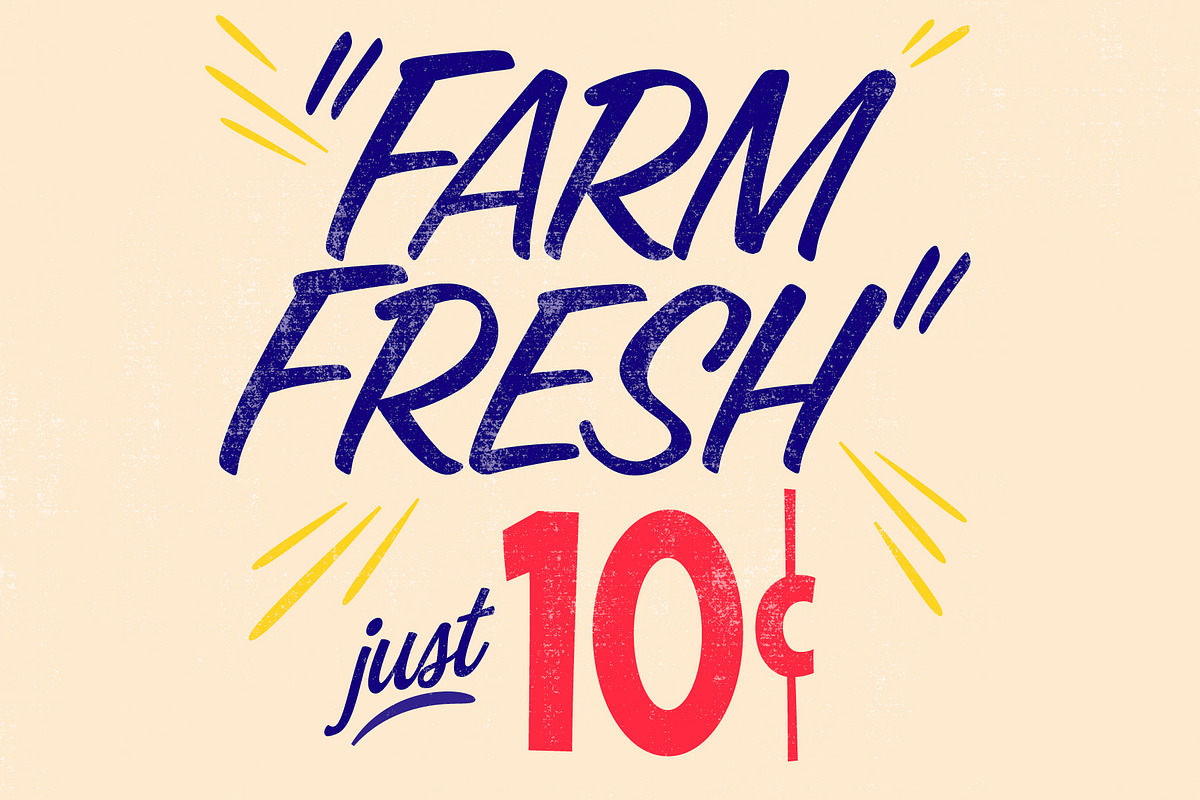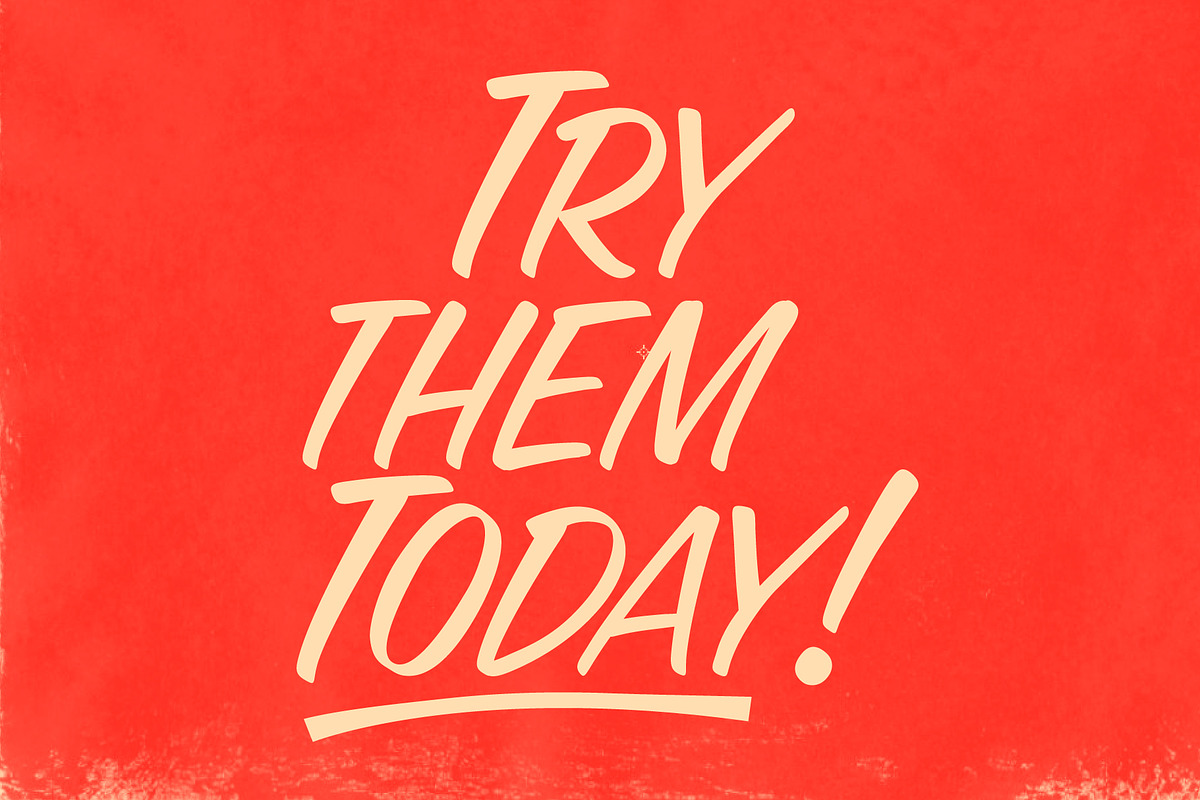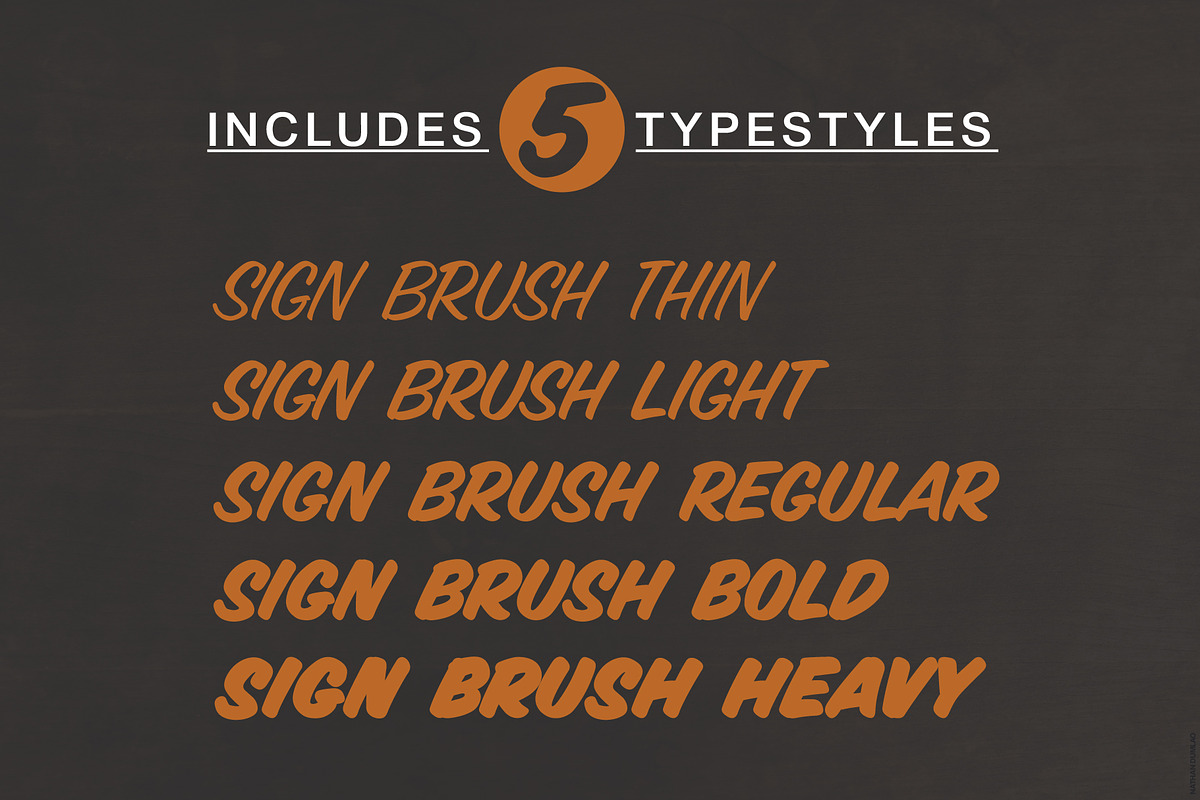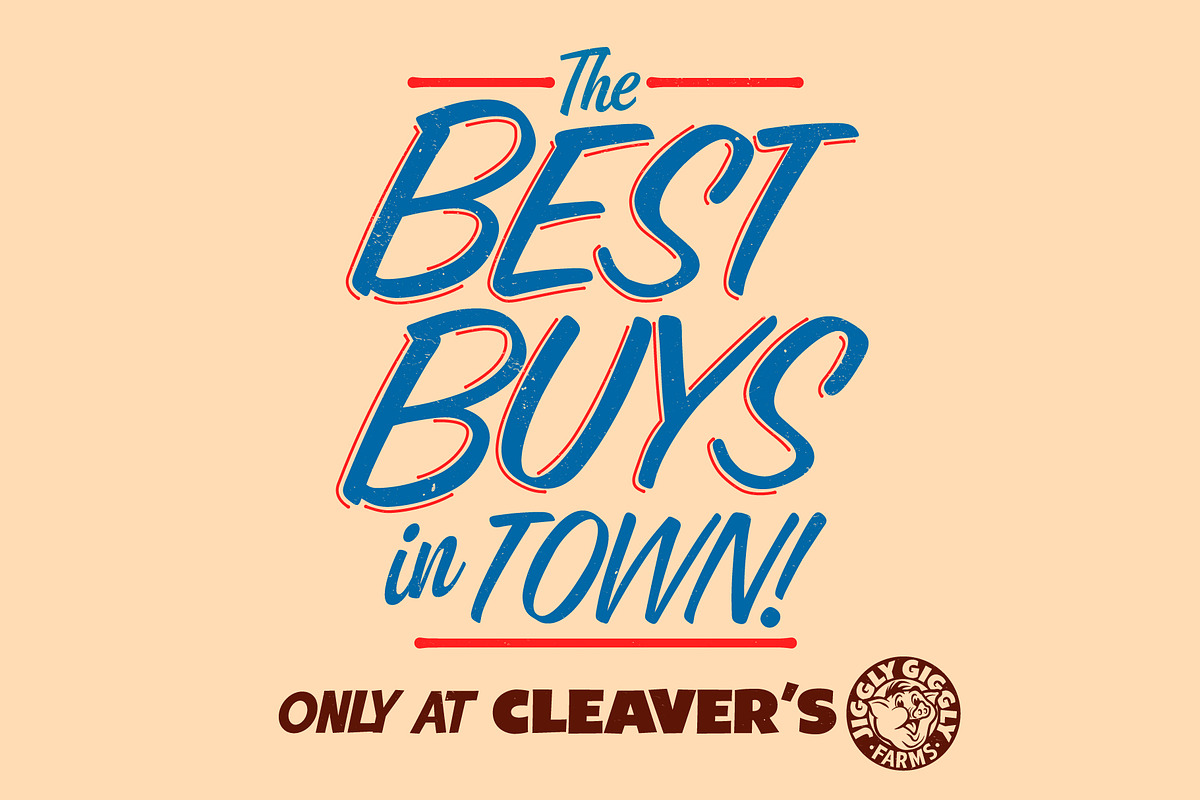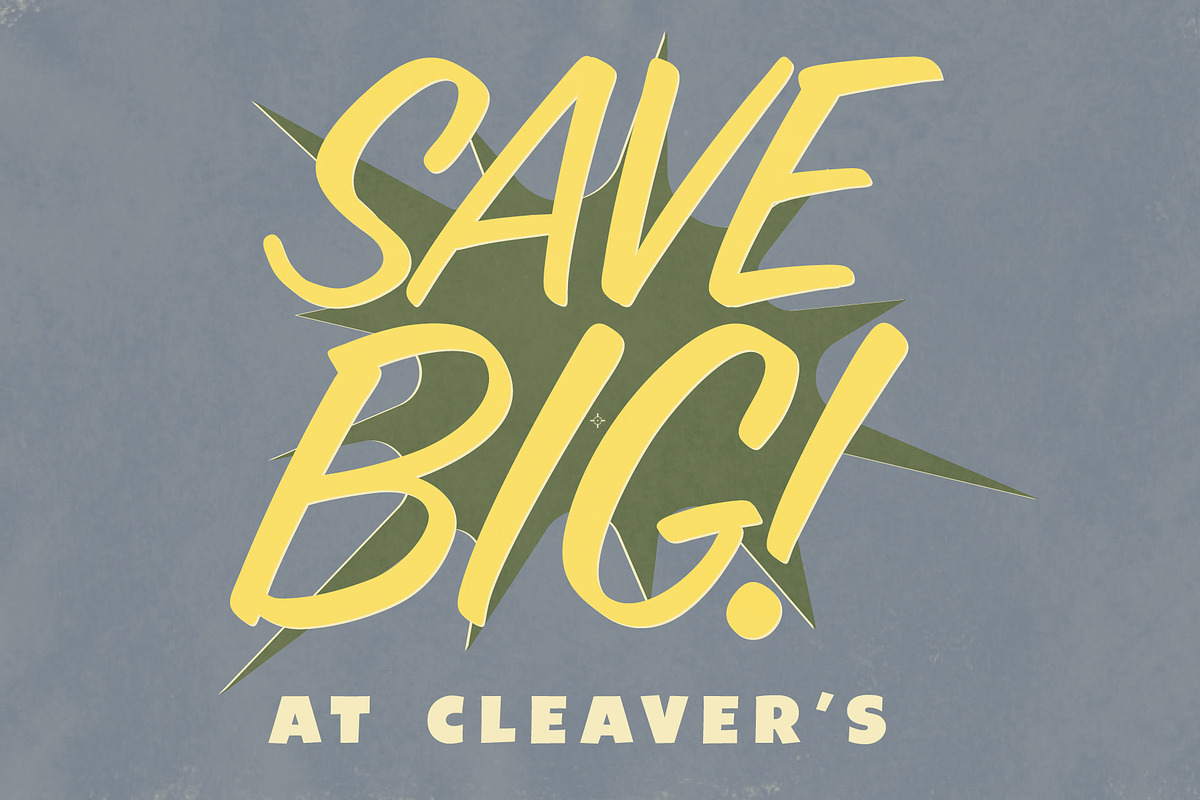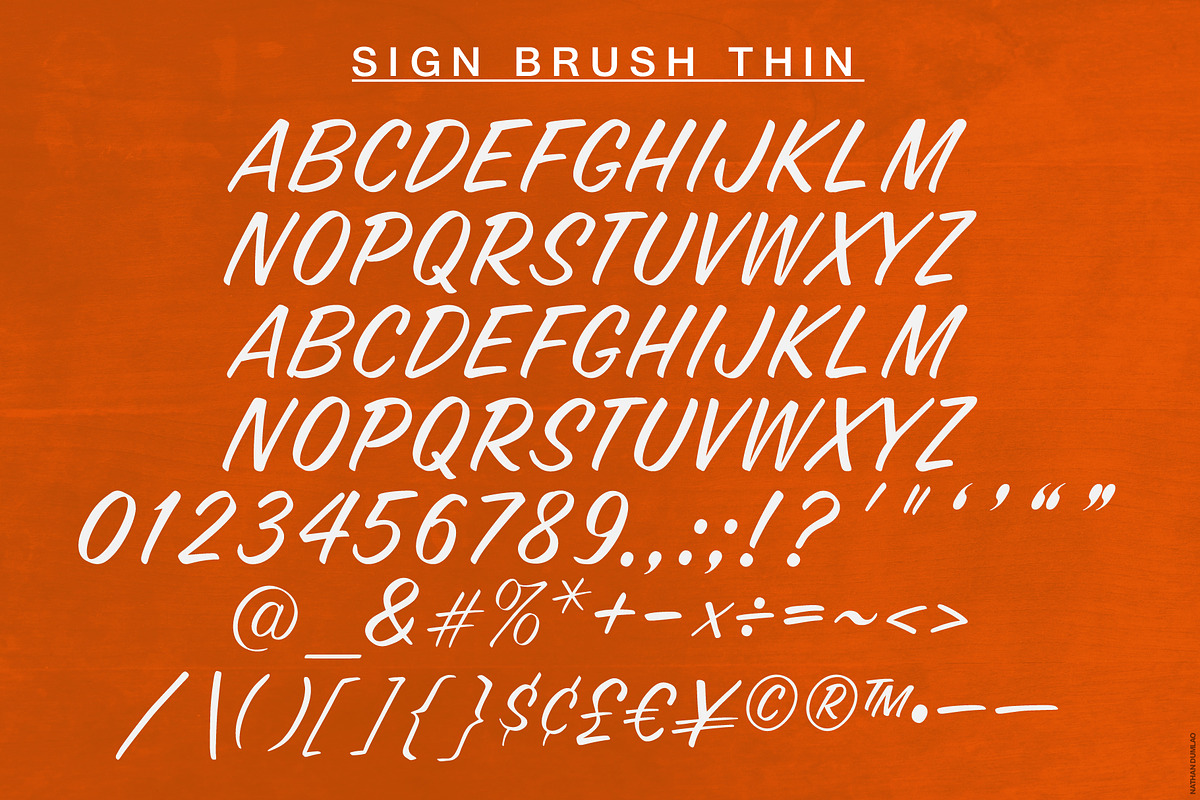
Sign Brush Thin | Display Type
StudioWorks introduces •• S I G N • B R U S H • T H I N •• — our slimmest, one-stroke, casual display typeface!
The wispy brush strokes of Sign Brush Thin replicate the beautiful, hand-lettered work of master sign artists. The gentle, low contrast style attained with the thinnest sign brush created graceful sloping strokes and energetic arches. Sign Brush Thin brings the traditional look of hand-lettered type to decorate logos, headlines, posters and signage with a touch of nostalgic style.
Sign Brush Thin includes:
- Single Case (capital) A-Z characters
- Numbers (0-9)
- Standard punctuation and glyphs
Effortlessly create that universal, hand-lettered appearance to all your designs with Sign Brush Thin!